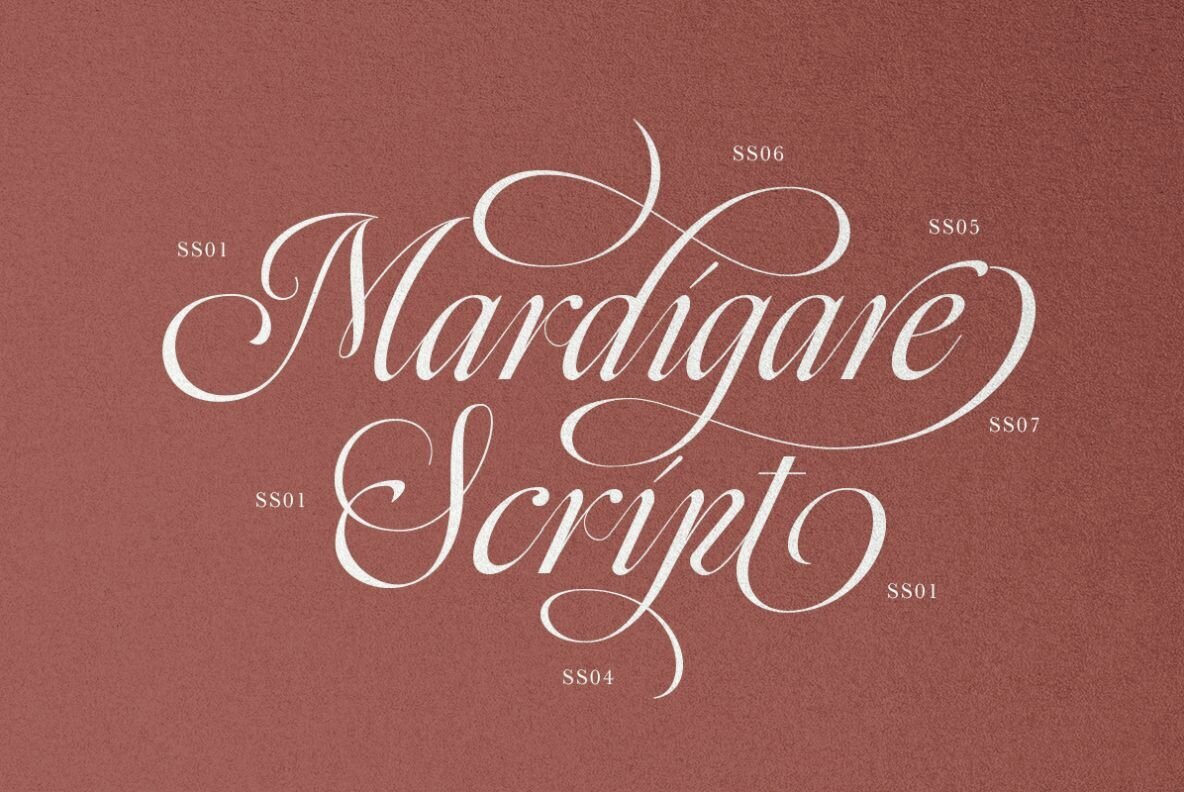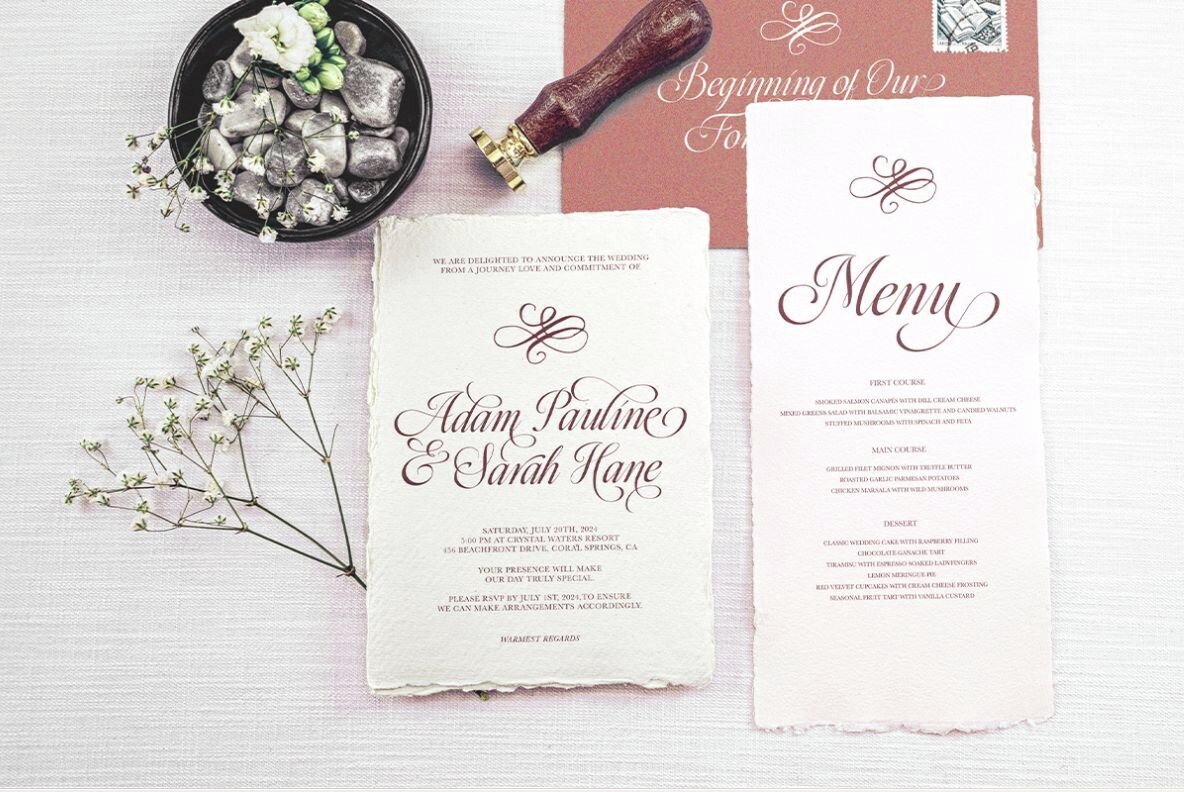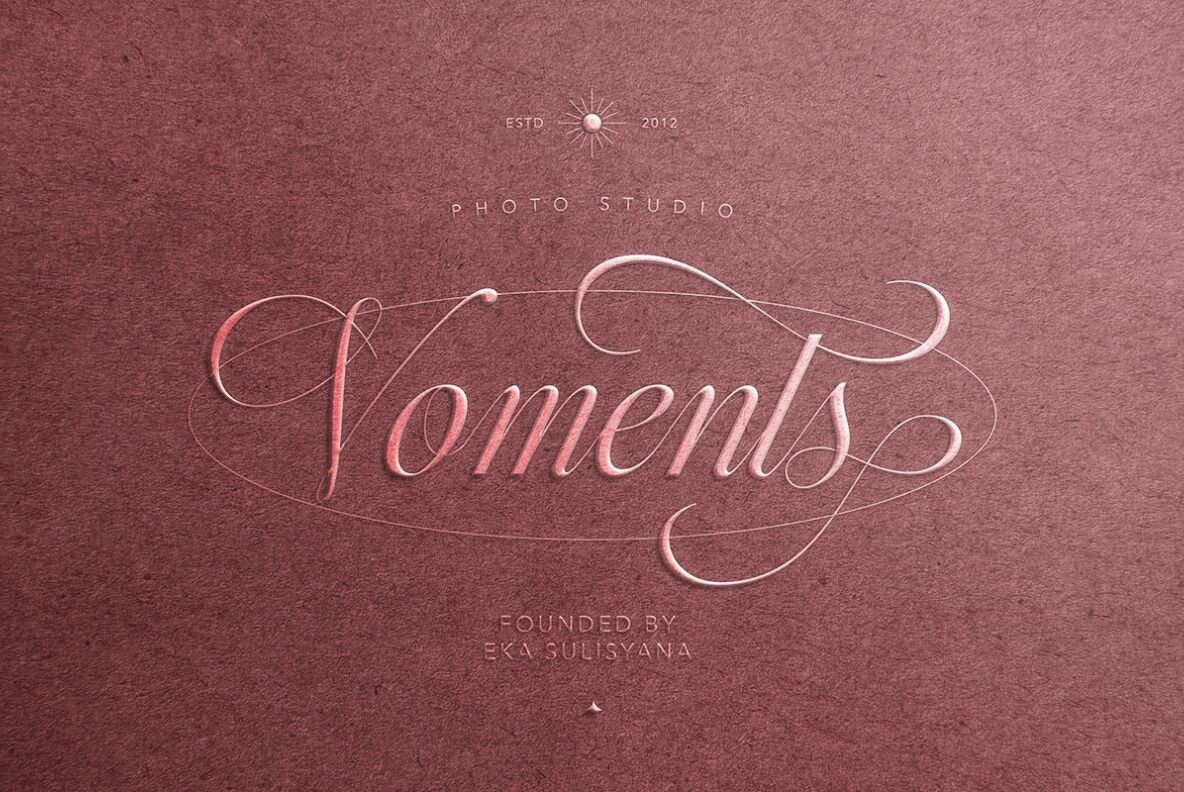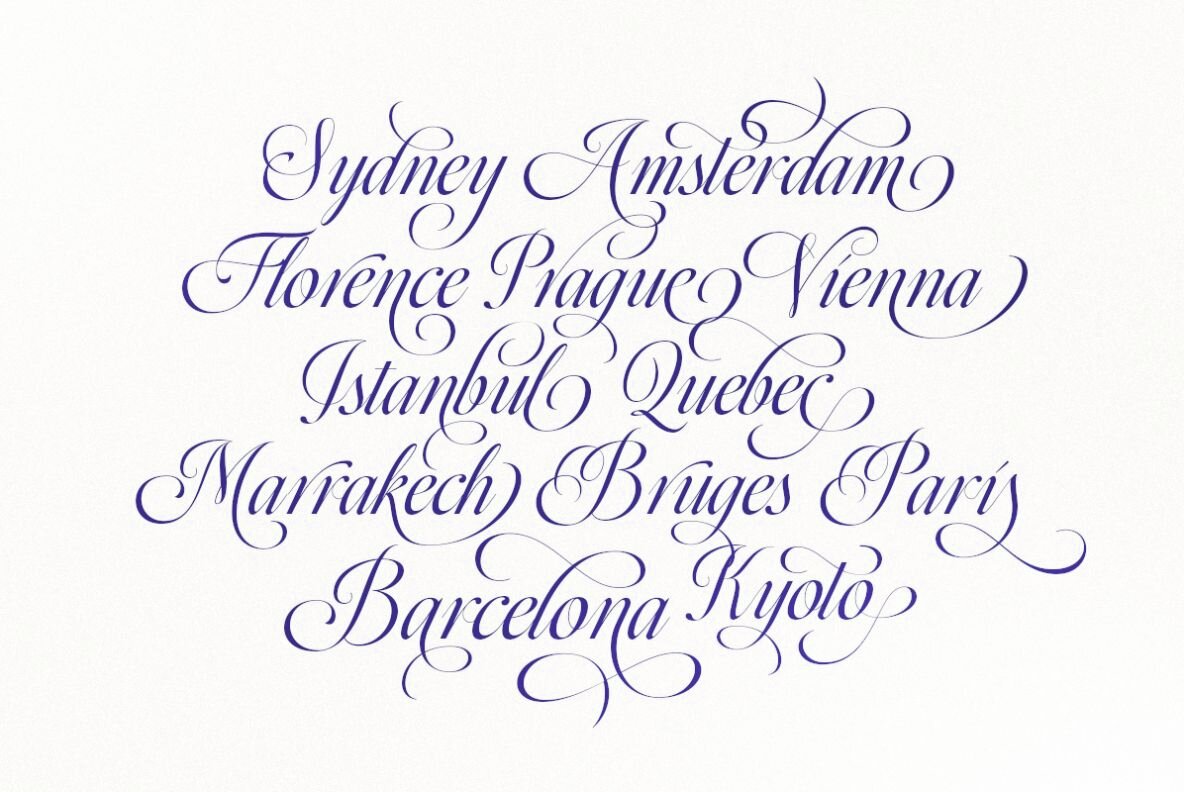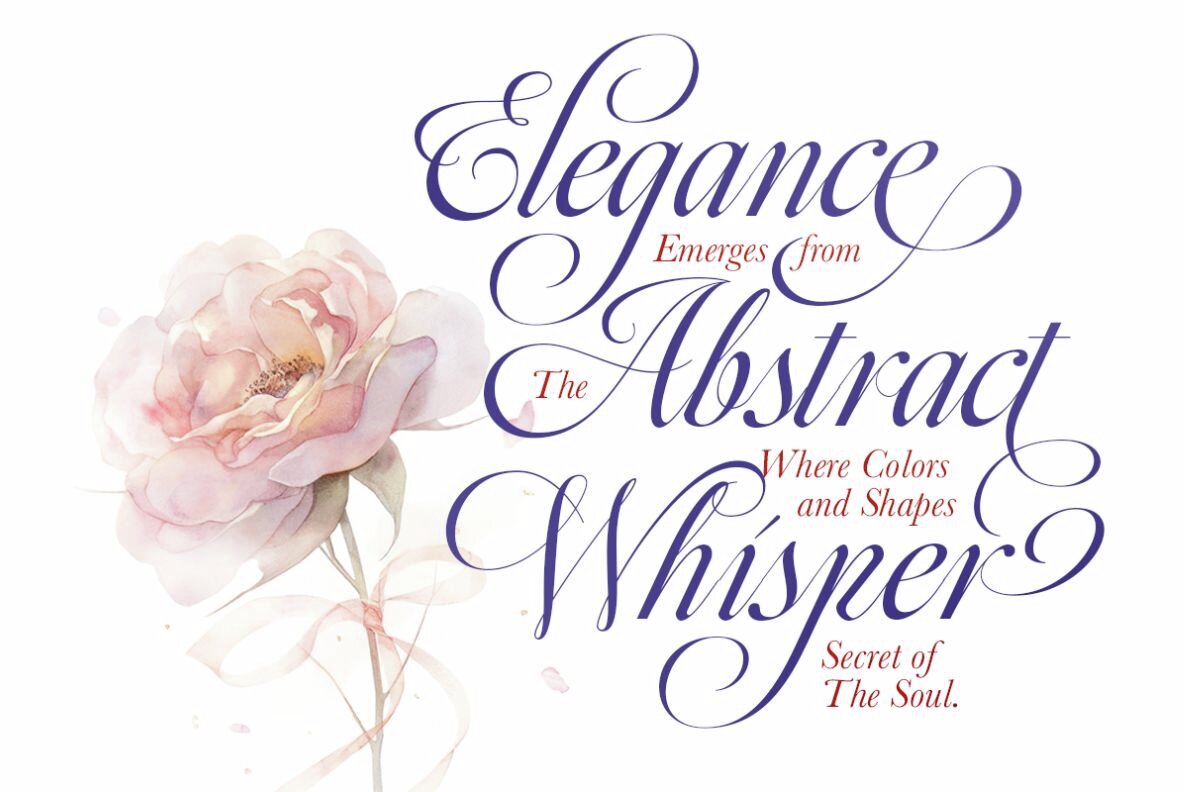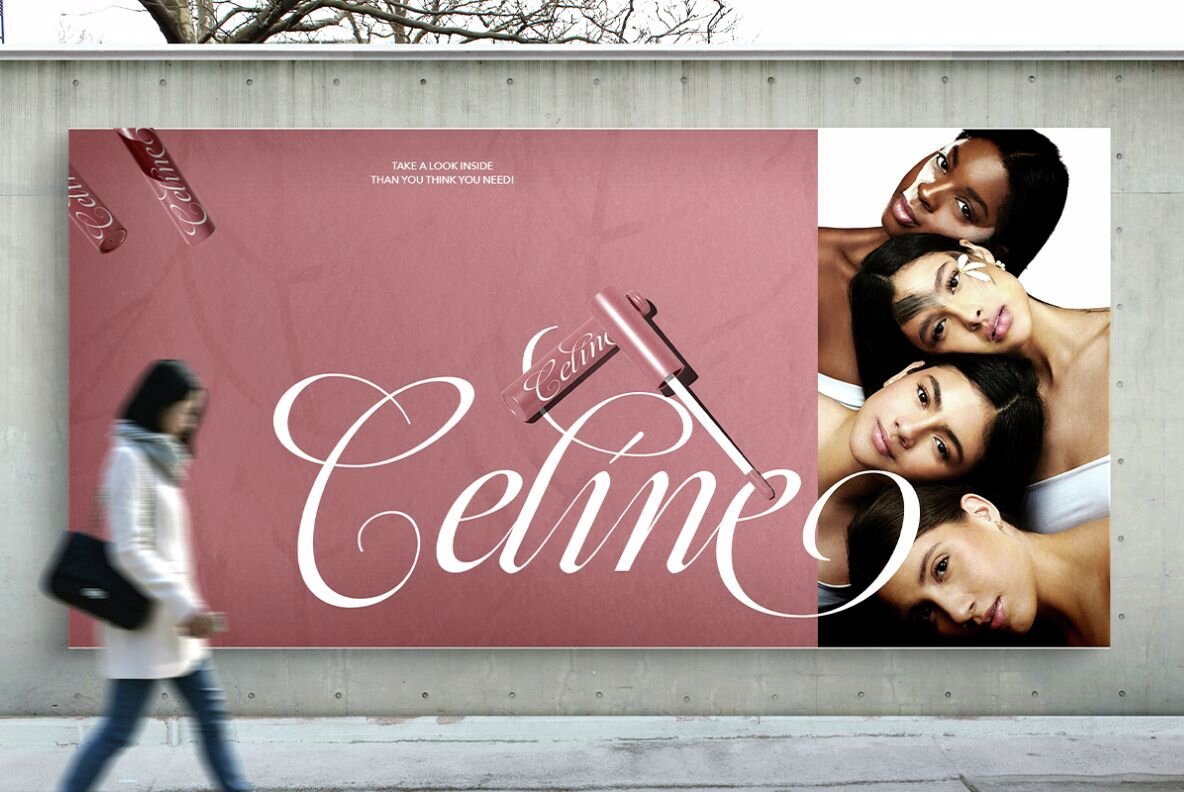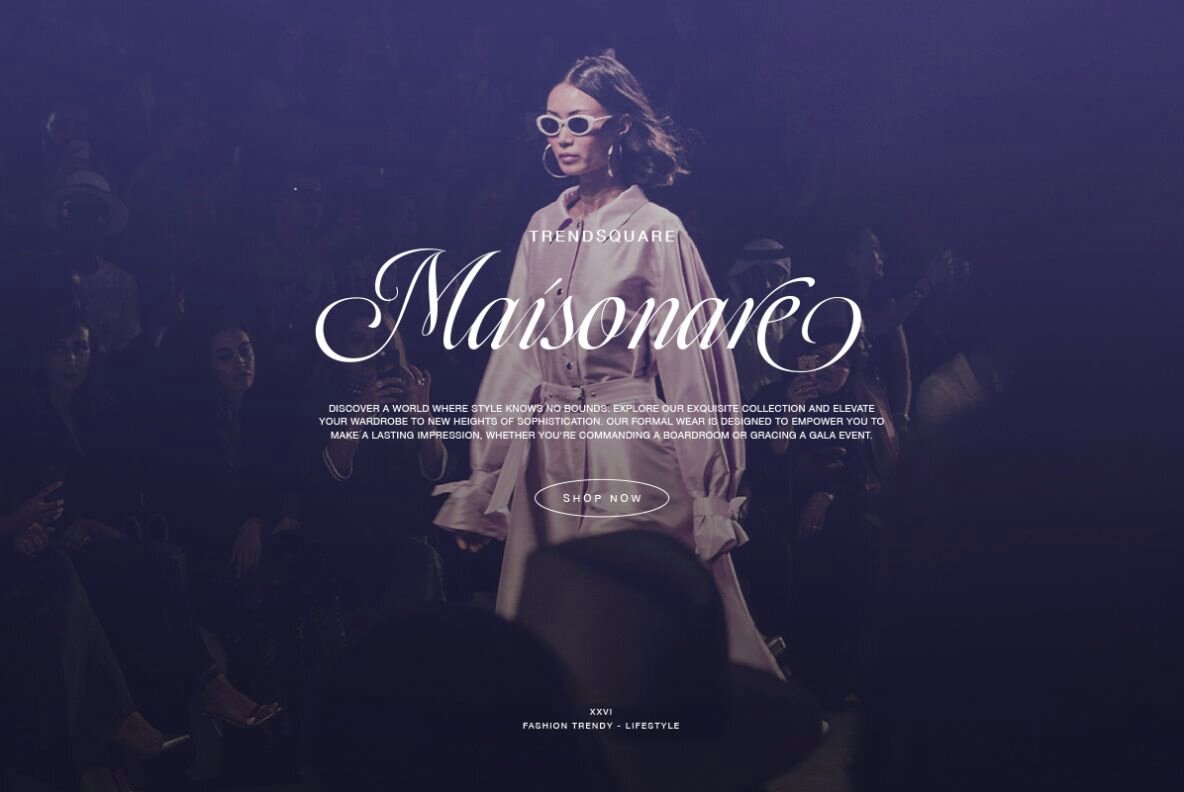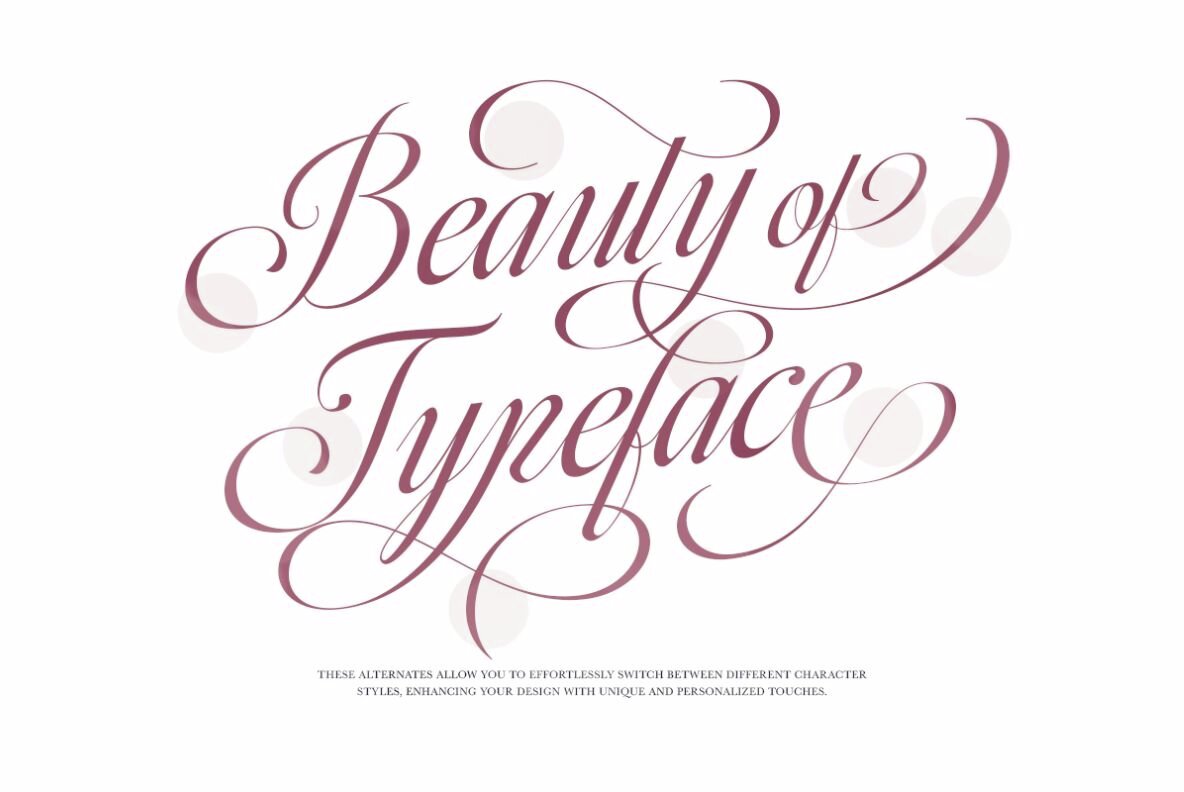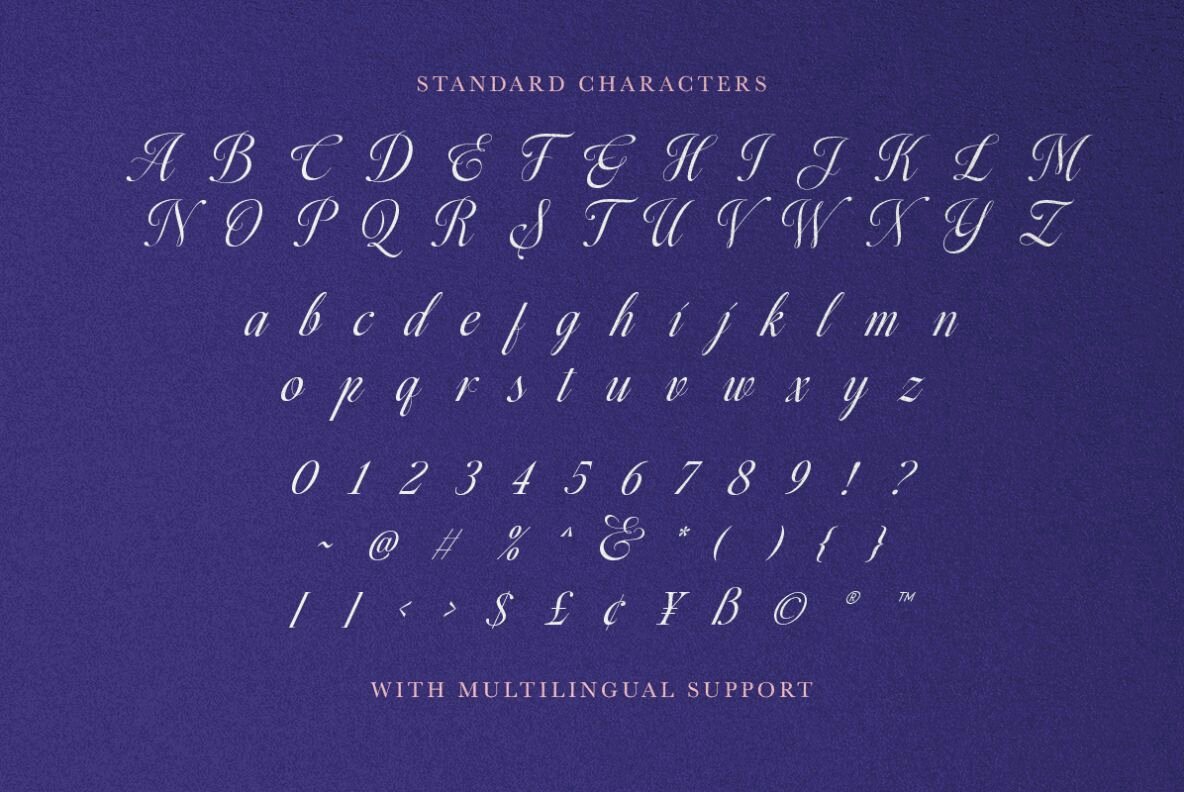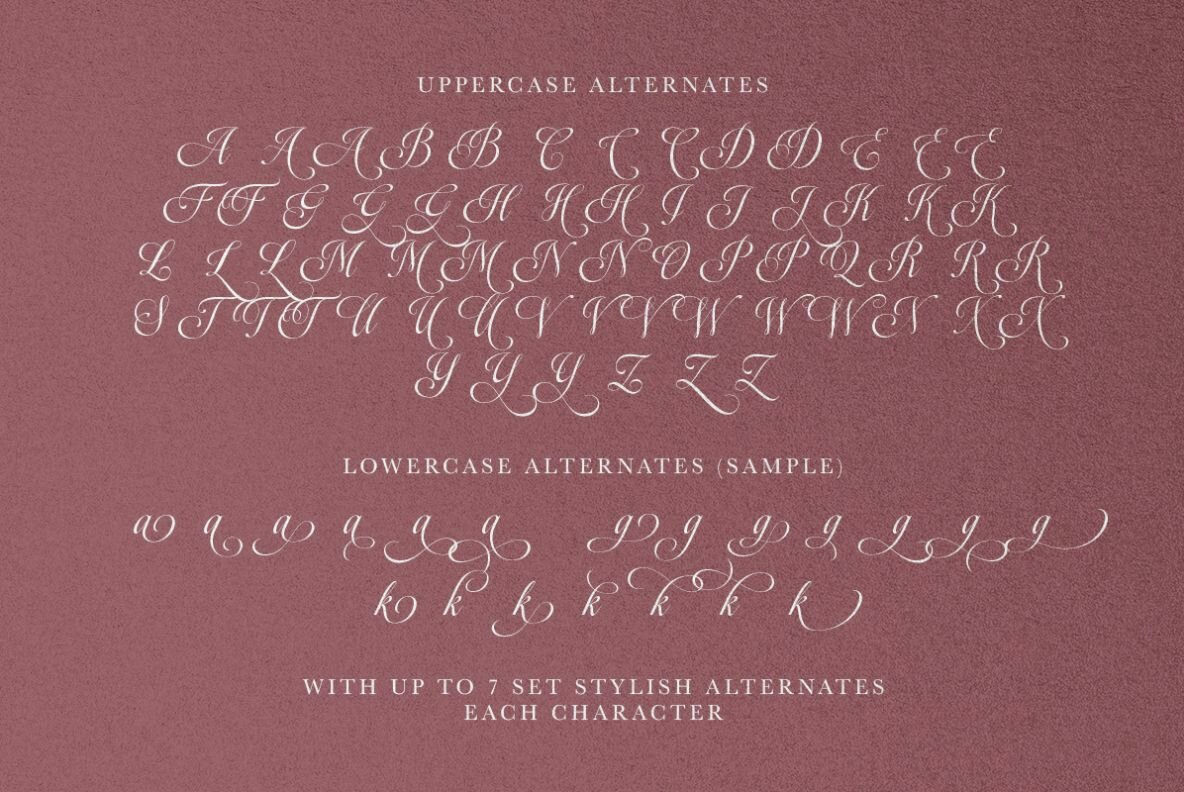
Mardigare Font
Mardigare Regular
Mardigare is a luxury script font designed to add a classy, elegant touch to any project. Its stylish alternates and sophisticated design make it an excellent choice for branding, logos, quotes, and posters. This font is also perfect for creating beautiful wedding invitations, infusing the text with a refined charm that captures attention.
With up to seven sets of stylish alternates, Mardigare offers ample flexibility, allowing designers to customize their work for a unique and stunning appearance. Additionally, its multilingual support expands its versatility, making it accessible for diverse projects across various languages. Whether you're working on a personalized logo or a memorable quote, this script font will enhance the visual appeal and professionalism of your design.